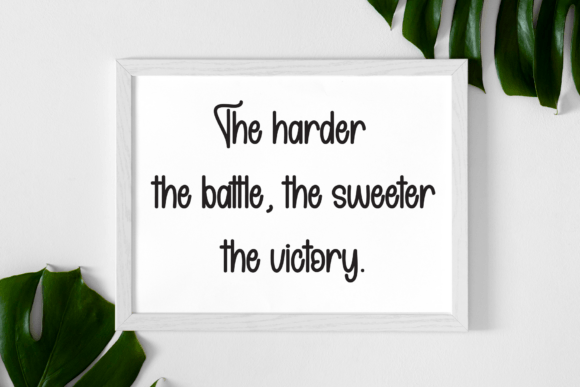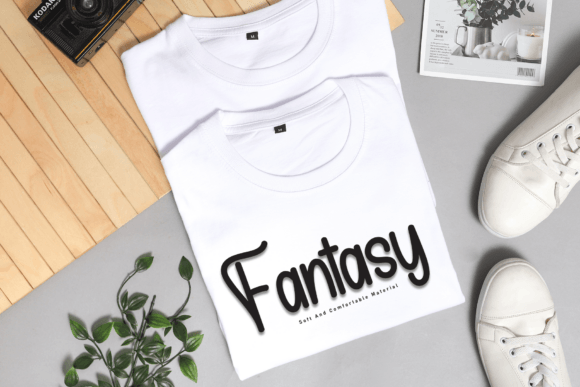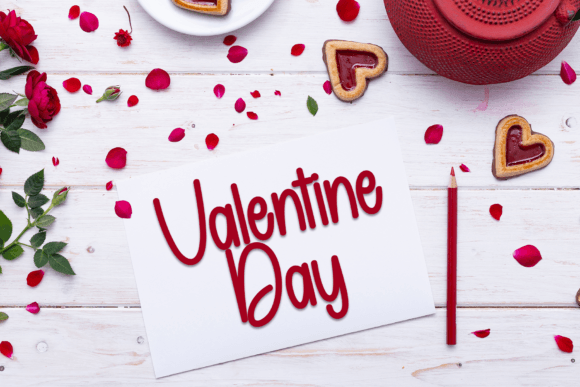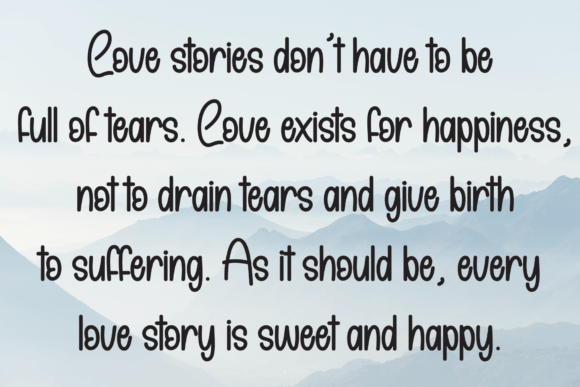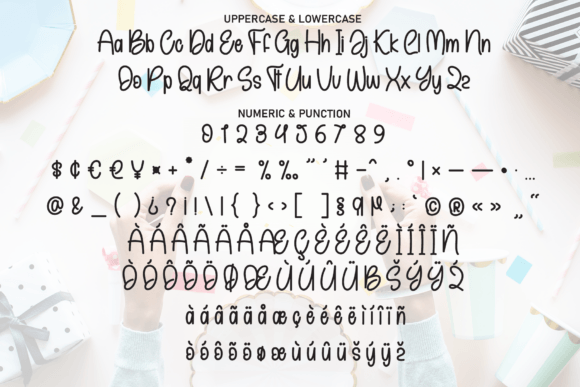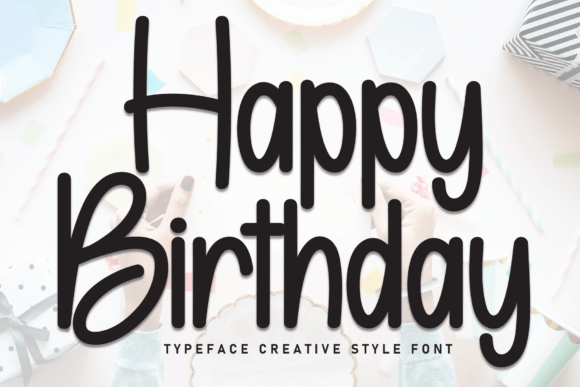
Happy Birthday Font: Make a Statement with Confidence
Are you looking for a font that commands attention and makes a bold statement? Look no further than the Happy Birthday Font. This display font is designed to turn heads with its strong lines, striking shapes, and impactful presence. Whether you’re creating headlines, posters, branding materials, or any design that needs to stand out, this font is the perfect choice.
Confidence and Modernity in Every Line
The Happy Birthday Font exudes confidence and modernity, ensuring that your message is seen loud and clear. Its bold and striking design makes it perfect for designers and crafters who want to add a touch of personality to their projects. With this font, you can bring power and personality to every project, making it a must-have for any designer or crafter looking to make a statement.
The Happy Birthday Font is versatile and can be used for a wide range of design projects. Here are some ideas to get you started:
- Headlines and Titles: Use the Happy Birthday Font to create bold and eye-catching headlines that grab attention.
- Posters and Flyers: Make a statement with your posters and flyers using this font’s strong lines and striking shapes.
- Branding and Logo Design: Add a touch of confidence and modernity to your brand with this font.
- Social Media Graphics: Use the Happy Birthday Font to create social media graphics that stand out from the crowd.
- Party Decorations: Create custom party decorations, such as birthday banners and signs, with this font.
Why Choose the Happy Birthday Font?
There are many reasons why the Happy Birthday Font is a great choice for designers and crafters. Here are a few:
- Unique and Eye-Catching: This font is designed to stand out and grab attention.
- Versatile: Use it for a wide range of design projects, from headlines to party decorations.
- Easy to Read: Despite its bold design, this font is easy to read, making it perfect for headlines and titles.
- Customizable: Experiment with different colors, sizes, and styles to make the font your own.
Tips for Using the Happy Birthday Font
Here are a few tips for using the Happy Birthday Font:
- Use it Sparingly: Because of its bold design, it’s best to use this font sparingly to avoid overwhelming your design.
- Pair it with Other Fonts: Experiment with pairing the Happy Birthday Font with other fonts to create visual interest.
- Experiment with Colors: Try out different colors to see what works best with your design.
The Happy Birthday Font is a bold and eye-catching display font that’s perfect for designers and crafters who want to make a statement. With its strong lines, striking shapes, and impactful presence, it’s sure to turn heads. Whether you’re creating headlines, posters, branding materials, or party decorations, this font is a great choice. So why wait? Download the Happy Birthday Font today and start creating designs that command attention.
- What type of font is the Happy Birthday Font? The Happy Birthday Font is a bold display font.
- What is the Happy Birthday Font best used for? This font is best used for headlines, posters, branding materials, and any design that needs to stand out.
- Is the Happy Birthday Font easy to read? Yes, despite its bold design, this font is easy to read.